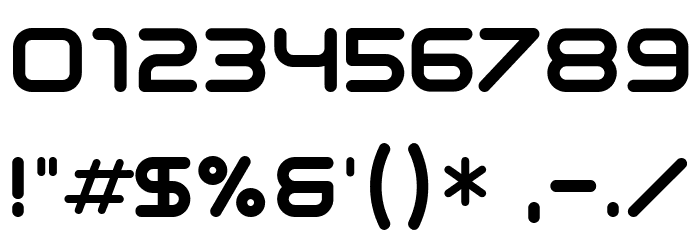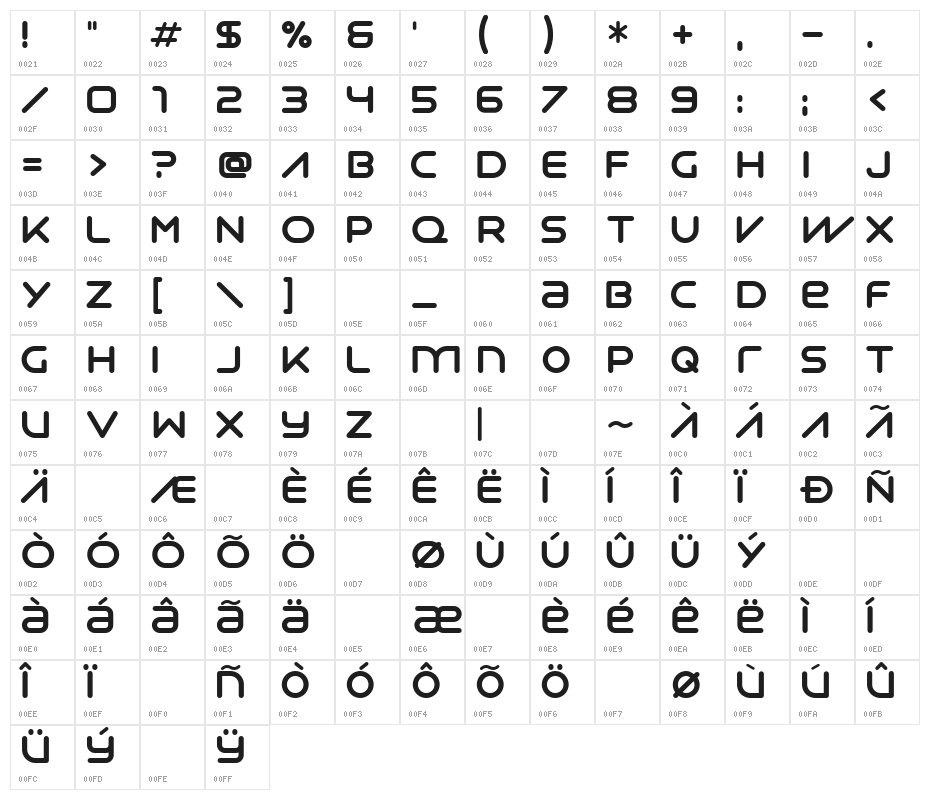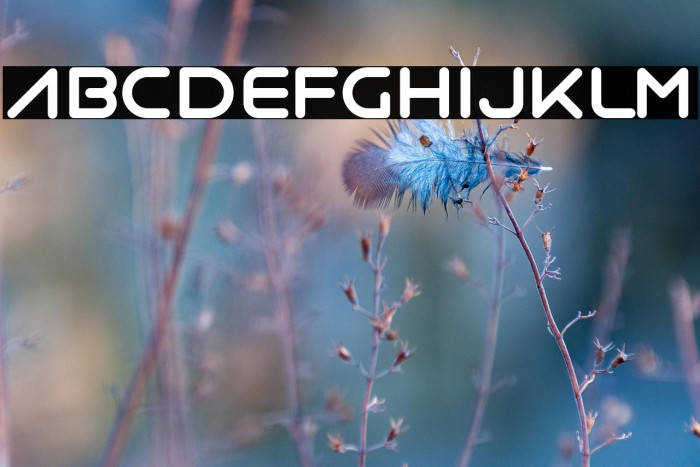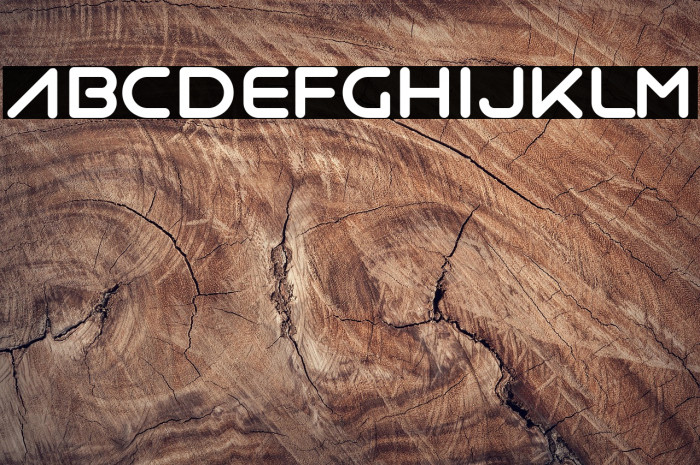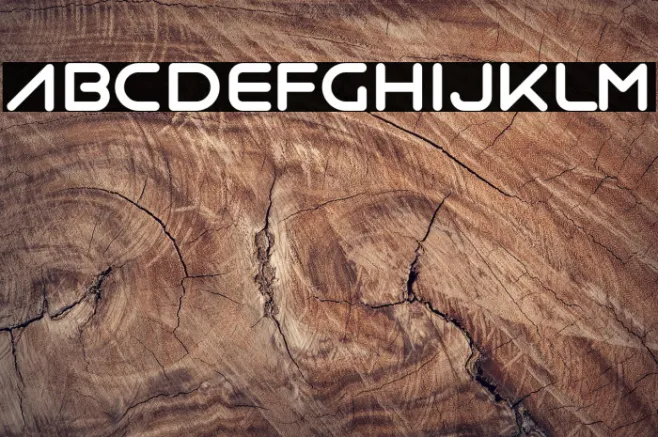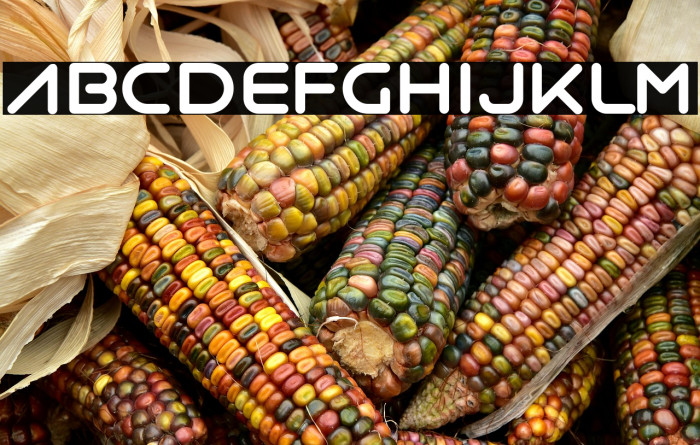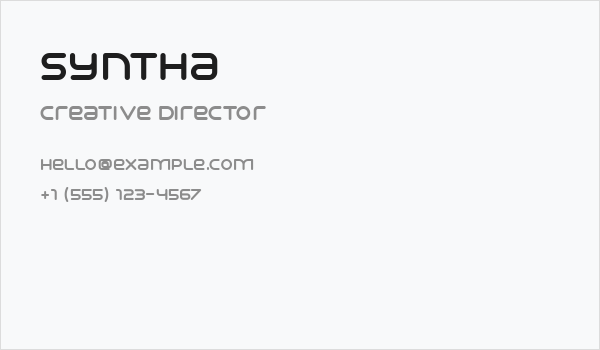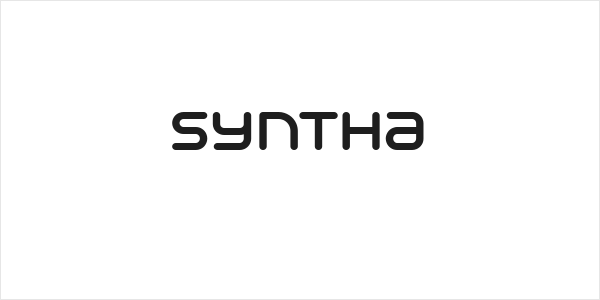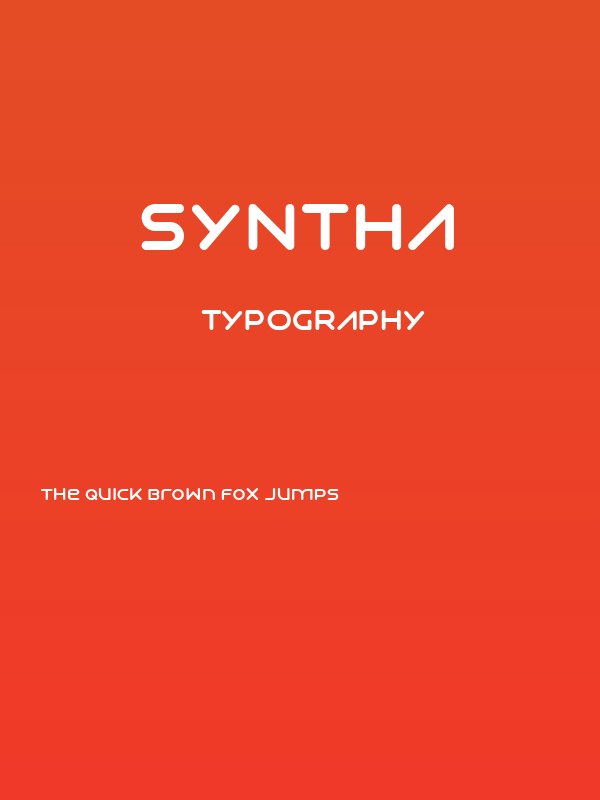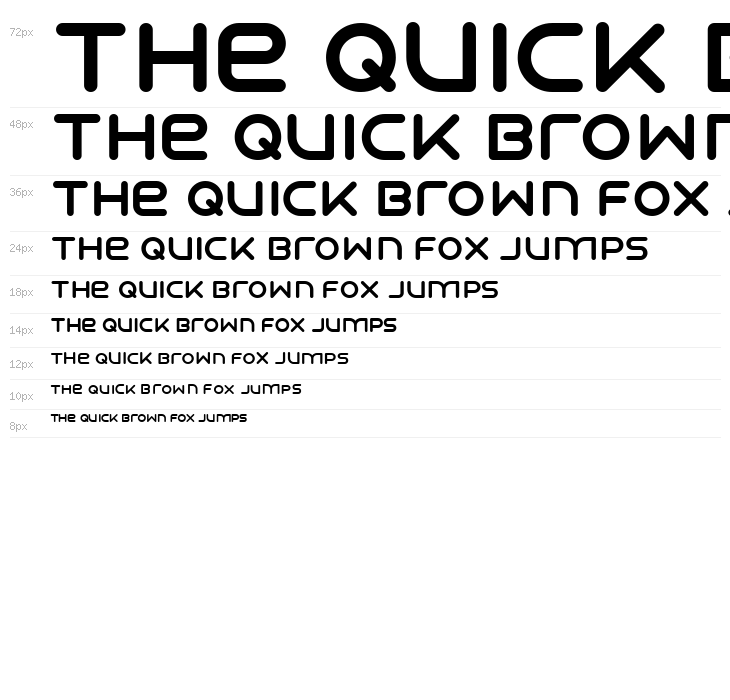
Syntha Font
Syntha Description
This font features a modern and futuristic design with rounded edges and a geometric structure. The characters are uniform in width, creating a cohesive and balanced appearance. The uppercase and lowercase letters maintain a consistent style, with smooth curves and minimalistic forms. The numerals are clear and easy to read, matching the overall aesthetic. Special characters are designed with the same attention to detail, ensuring they blend seamlessly with the rest of the font. This typeface is ideal for projects that require a sleek and contemporary look.
| Use Case | Headlines, Logos, Digital Interfaces |
| Proposed Projects | Ideal for tech branding, digital interfaces, modern advertising, and futuristic design projects. |